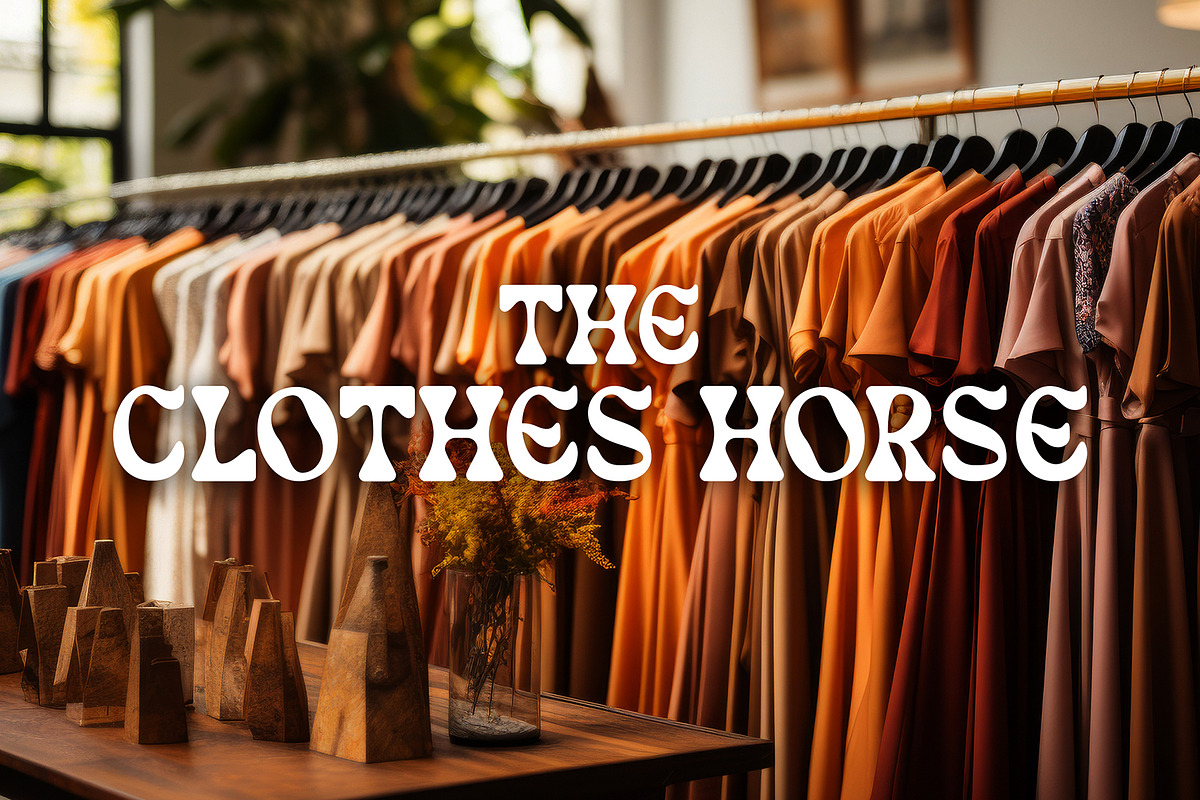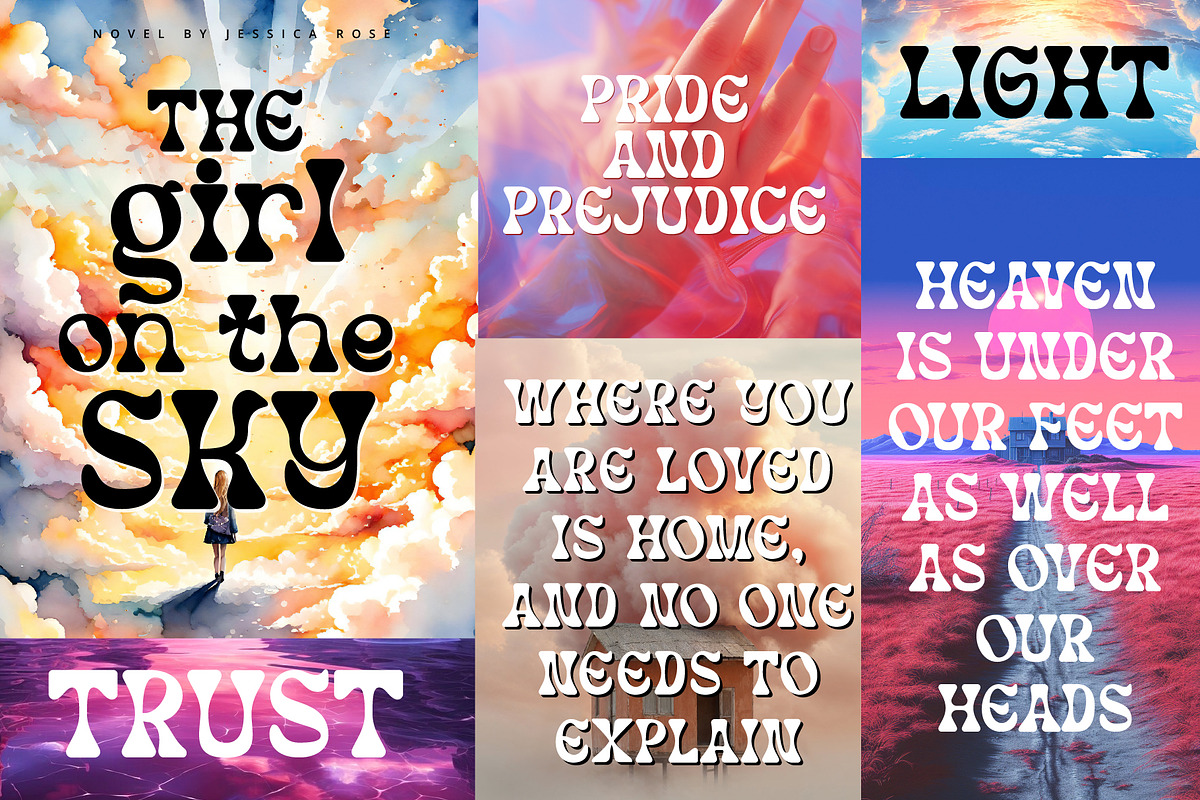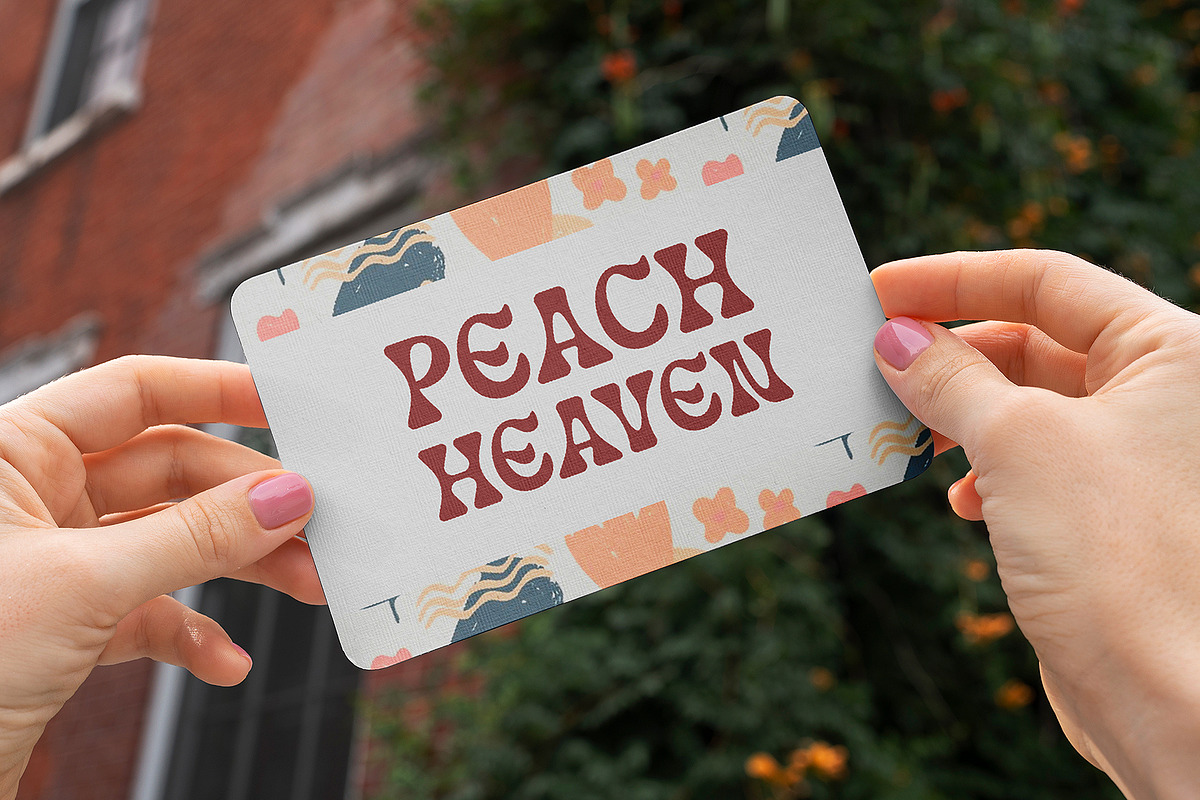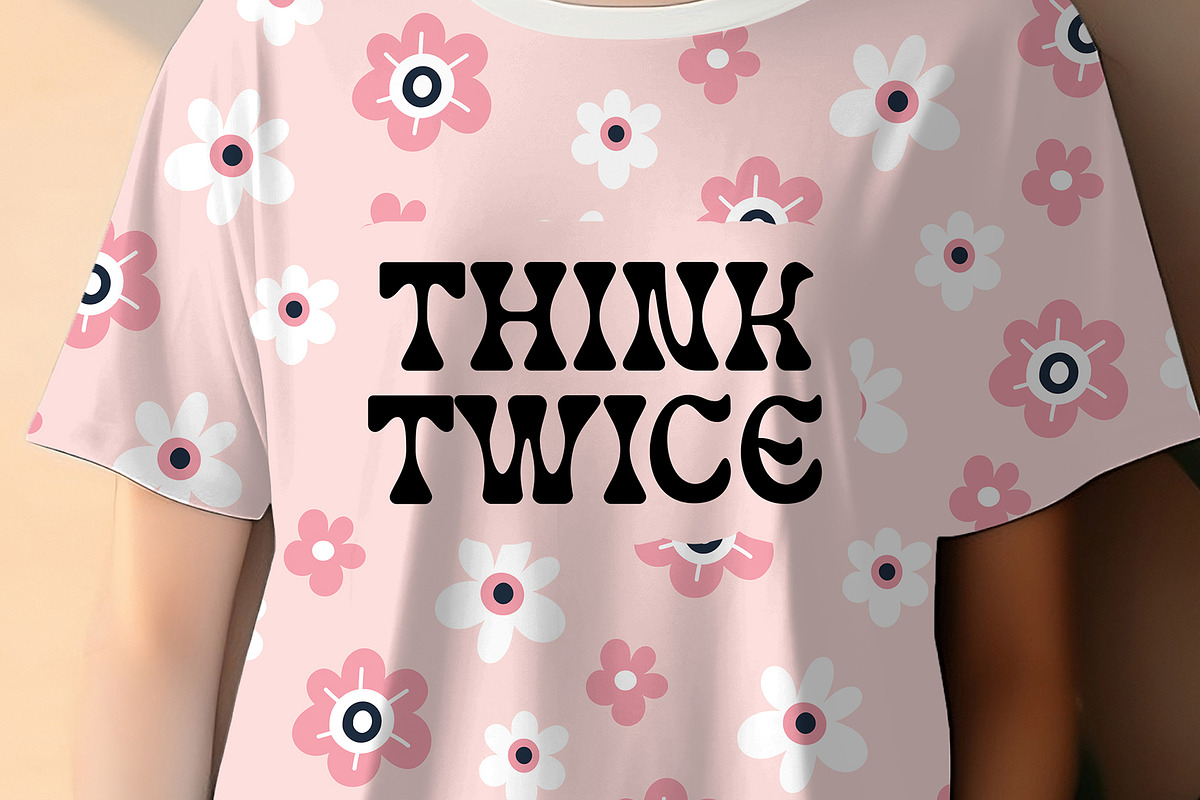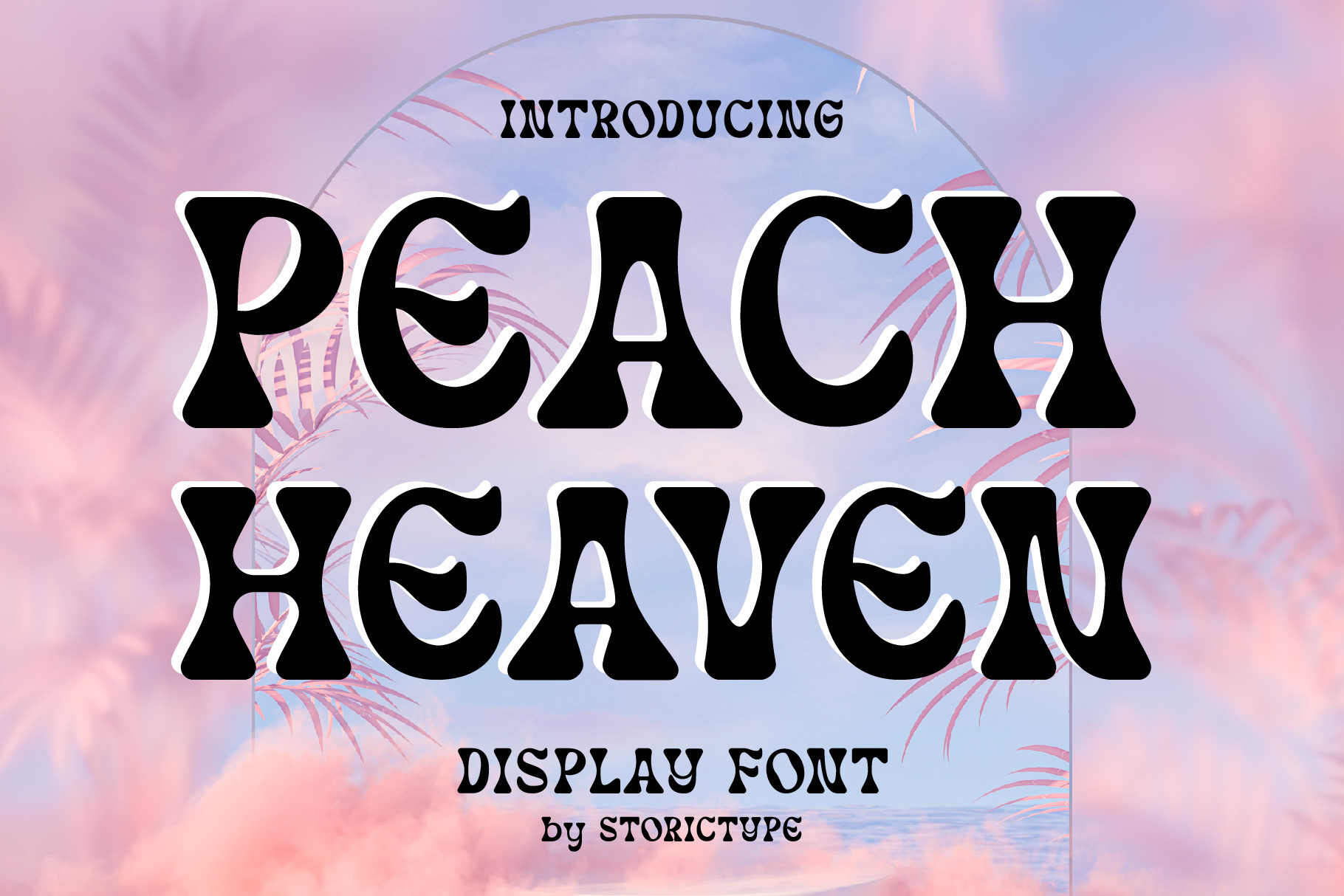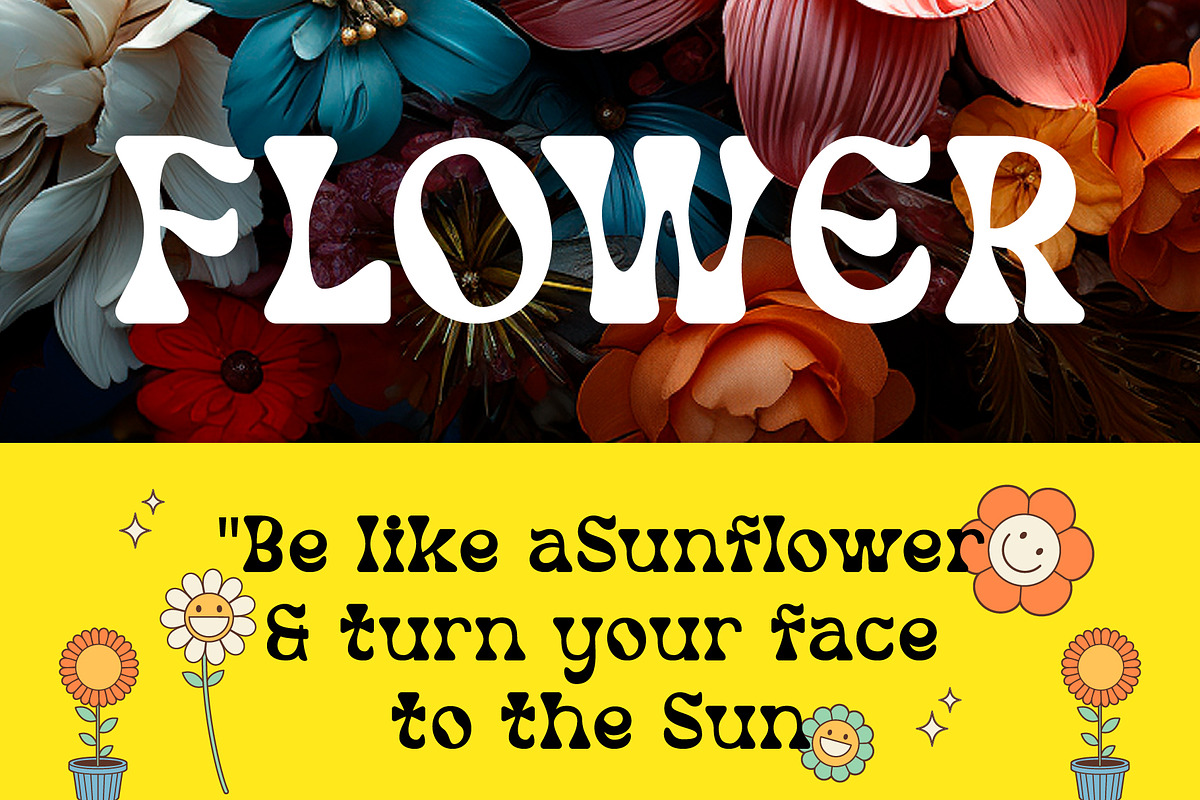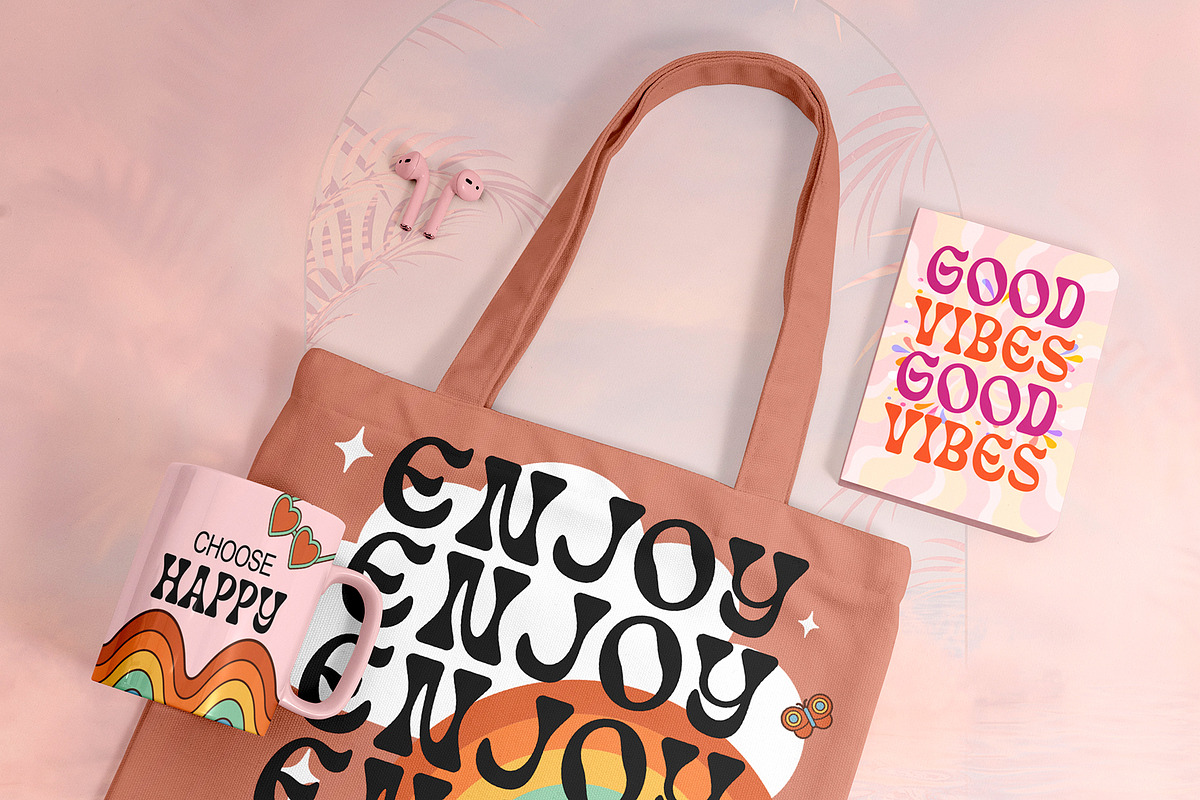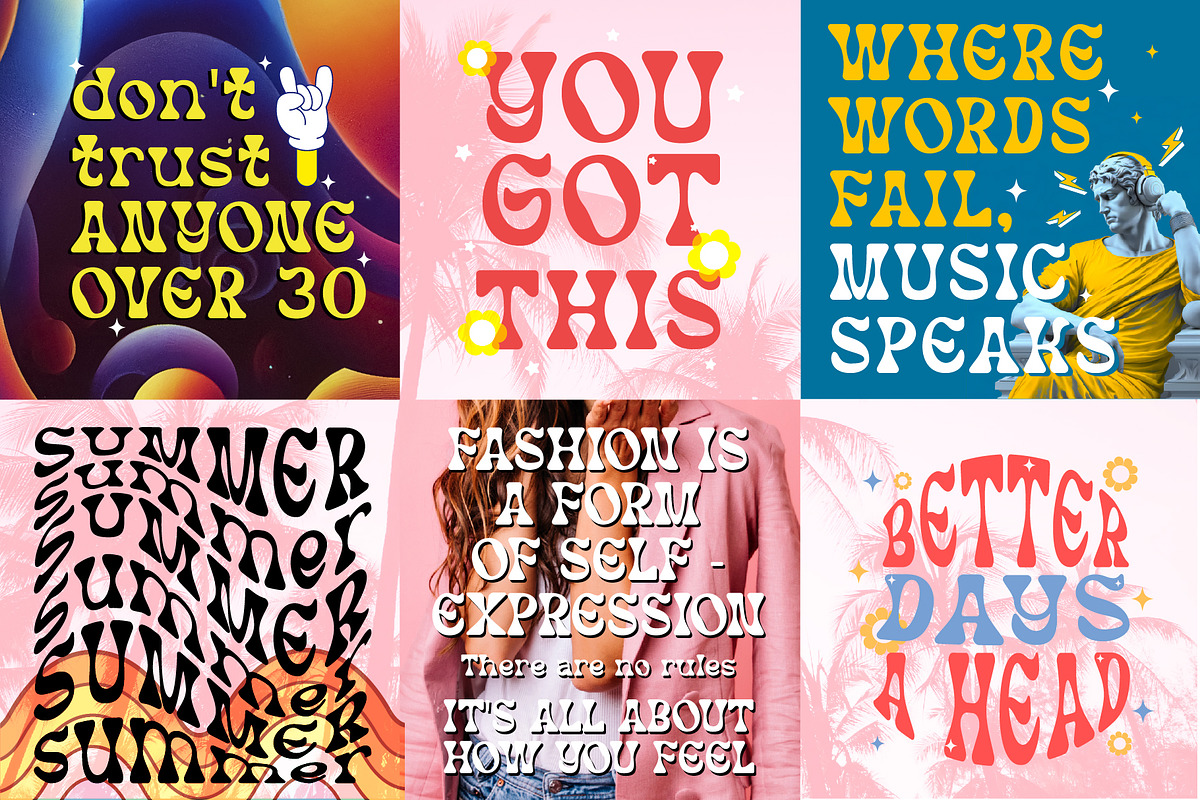
Peach Heaven | Playful Summer Font
Peace Heaven typeface inspired by psychedelic and display typeface. It's fun and groovy with a bold personality. Peace Heaven offers beautiful typographic harmony for a diversity of design projects, including logos & branding, wedding designs, social media posts, advertisements & product designs. If you want to emphasize the impression of being fun and cool but still nice and attractive, this font is the font that is suitable for you to use.